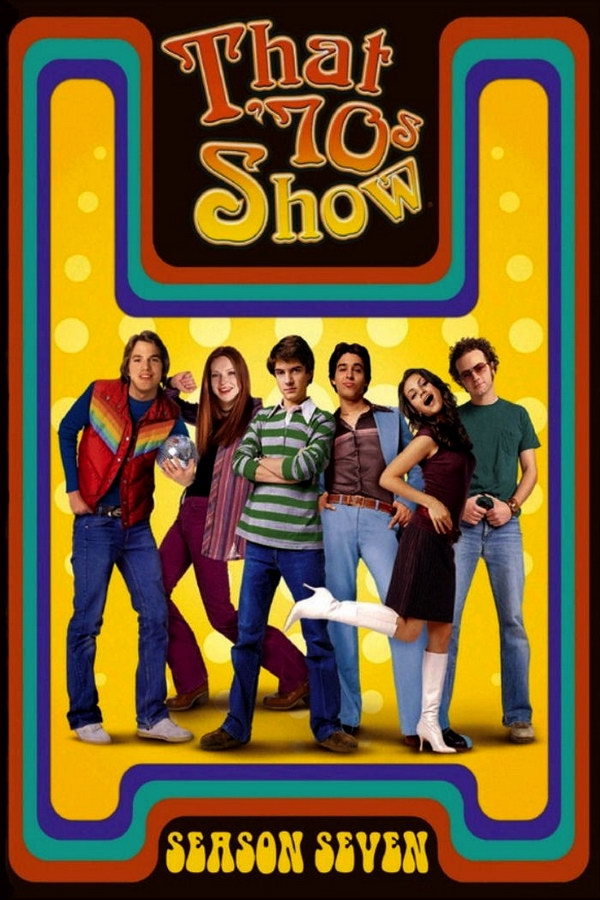
That '70s Show Font
Fonts in UseThat ’70s Show is an American television sitcom that aired from 1998 to 2006, depicting the lives of a group of teenagers in the fictional town of Point Place, Wisconsin during the late 1970s.
TV series title font resembles Arnold Boecklin Regular by Otto Weisert, a commercial decorative font for larger point sizes. More information about the font is available here.